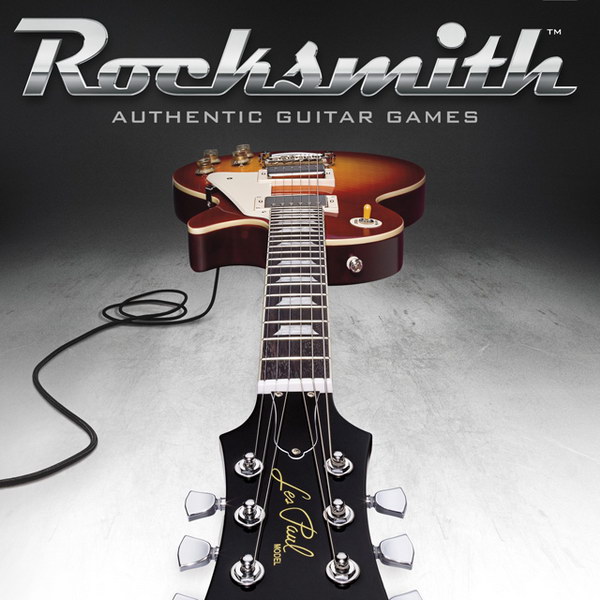
Rocksmith Font
Fonts in UseRocksmith is a music video game developed by Ubisoft designed to teach players how to play guitar or bass using real instruments by following on-screen notes.